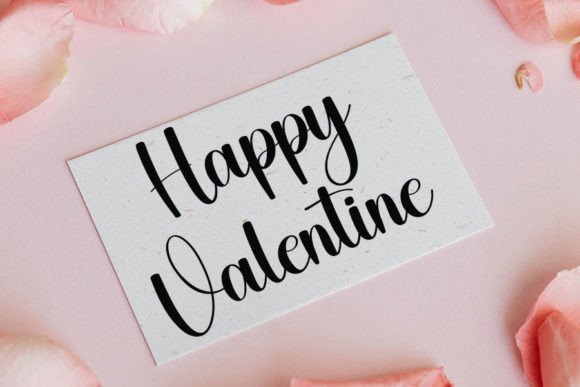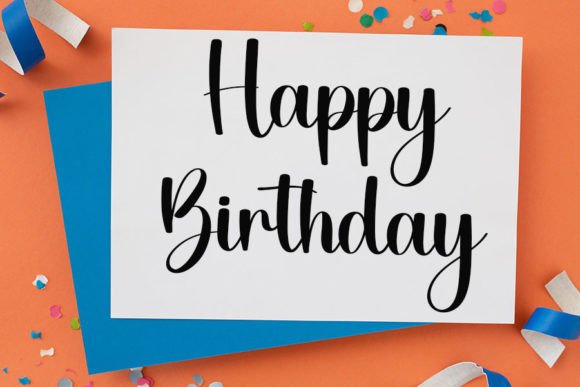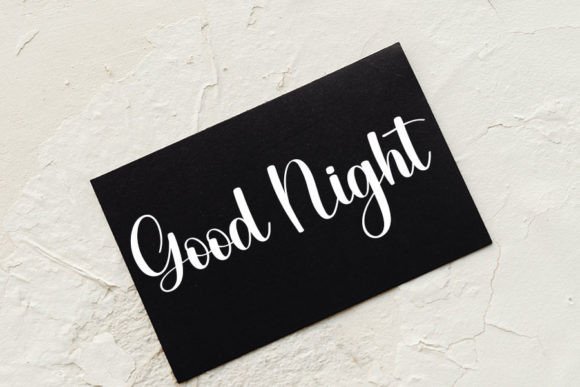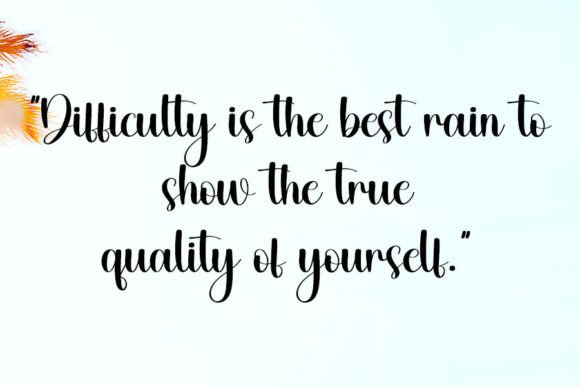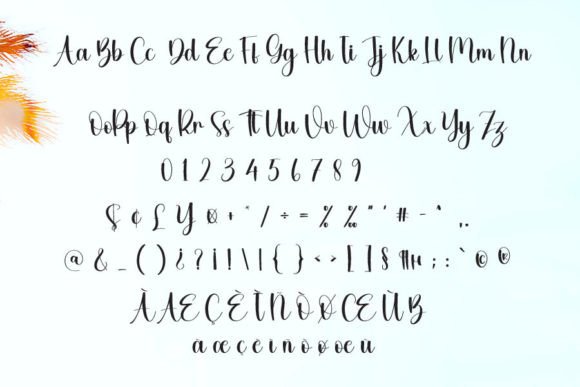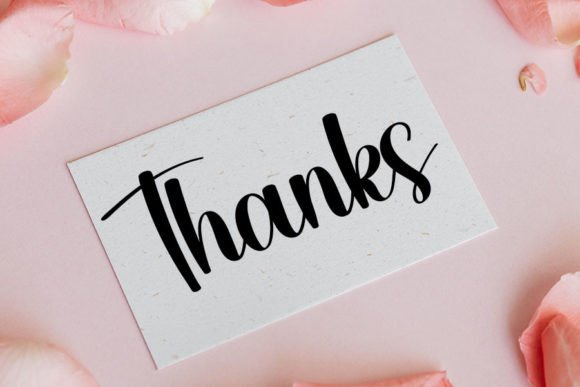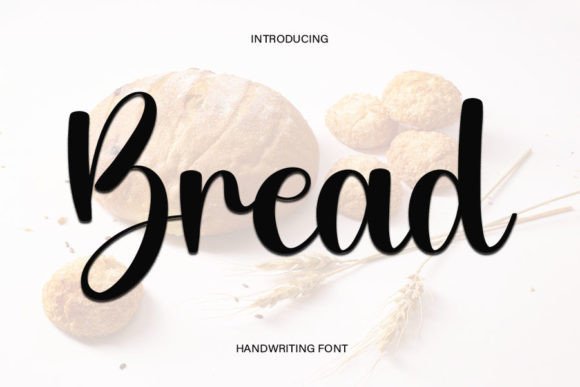
Bread Font: The Perfect Handwritten Font for Your Next Project
Bread Font is a beautiful, simple, and neat handwritten font that has gained popularity among designers and crafters. Its versatility makes it an excellent choice for a wide range of applications, from greeting cards to headlines, and it’s guaranteed to add a natural feel to your next project.
What is Bread Font?
Bread Font is a carefully crafted handwritten font that exudes a sense of warmth and friendliness. Its simple and neat design makes it easy to read and understand, making it perfect for use in various design projects. The font has a unique, organic feel that sets it apart from other fonts, making it an excellent choice for designers looking to add a personal touch to their work.
Key Features of Bread Font
- Simple and Neat Design: Bread Font has a clean and straightforward design that makes it easy to read and use in various contexts.
- Handwritten Style: The font has a beautiful handwritten style that adds a personal touch to any design project.
- Versatile: Bread Font can be used in a wide range of applications, from greeting cards to headlines, and even in digital media.
- Natural Feel: The font has a natural, organic feel that makes it perfect for use in projects that require a personal touch.
Applications of Bread Font
Bread Font is a versatile font that can be used in various design projects, including:
- Greeting Cards: The font’s warm and friendly design makes it perfect for use in greeting cards for special occasions.
- Headlines: Bread Font can be used to create eye-catching headlines for blogs, articles, and websites.
- Digital Media: The font can be used in digital media, such as social media graphics, email newsletters, and more.
- Crafting Projects: Bread Font is also perfect for use in crafting projects, such as scrapbooking, journaling, and card making.
Benefits of Using Bread Font
Using Bread Font in your design projects offers several benefits, including:
- Unique Design: The font’s unique design sets it apart from other fonts, making your project stand out.
- Easily Readable: Bread Font is easy to read, making it perfect for use in projects that require a clear and concise message.
- Time-Saving: The font’s simple and neat design makes it easy to use, saving you time and effort in your design projects.
- Professional Look: Bread Font can help give your project a professional look, making it perfect for use in business and personal projects.
Tips for Using Bread Font
Here are some tips for using Bread Font in your design projects:
- Use it in Combination with Other Fonts: Bread Font can be used in combination with other fonts to create a unique and visually appealing design.
- Experiment with Different Sizes: The font’s simple design makes it easy to use in different sizes, from small captions to large headlines.
- Add a Personal Touch: Use Bread Font to add a personal touch to your design projects, making them more relatable and engaging.
Bread Font is a beautiful, simple, and neat handwritten font that is perfect for use in various design projects. Its versatility, unique design, and natural feel make it an excellent choice for designers and crafters looking to add a personal touch to their work. With its wide range of applications and benefits, Bread Font is sure to become a staple in your font collection.